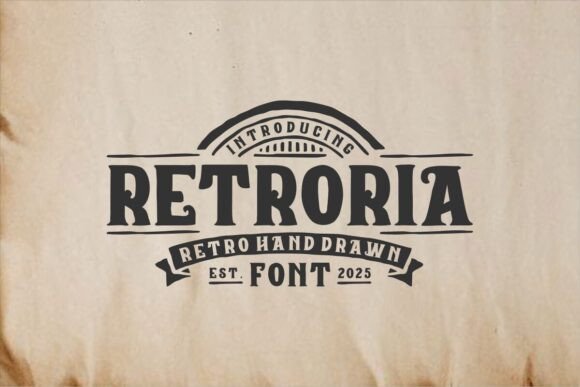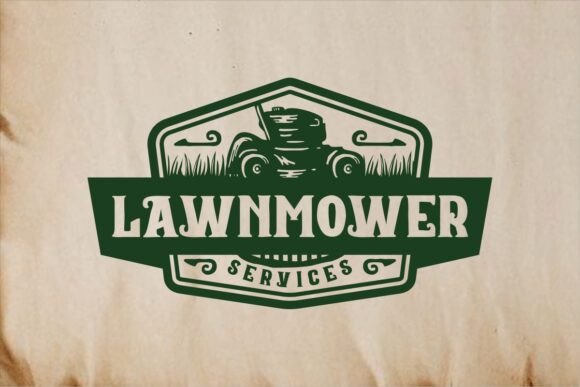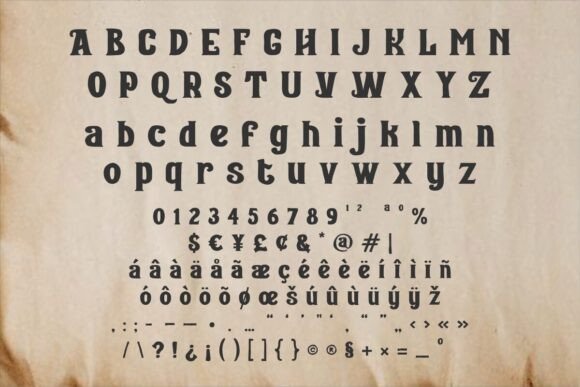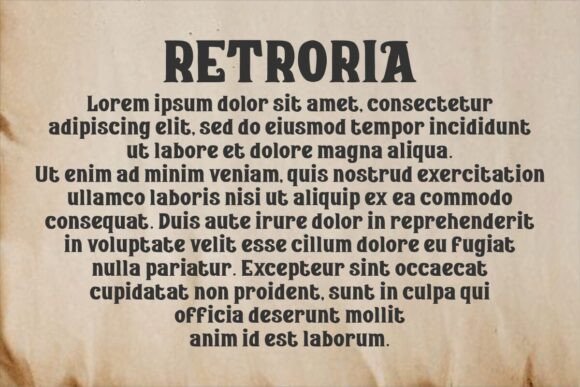
Retroria Font: Bold Vintage Typography for Eye-Catching Logo Design
About the Retroria Font
Experience the unique personality of Retroria Font, a font designed for impact. Retroria font combines the nostalgic charm of vintage typography with the personalized touch of hand-crafted artistry. This typeface is characterized by its playful curves, uneven lines, and unique imperfections, giving it an authentic, organic feel. It’s reminiscent of the classic signage and posters from the mid-20th century, often evoking a sense of warmth and familiarity.
Each letter in the font carries the artist’s unique flair, making it perfect for projects that require a touch of nostalgia, creativity, and individuality. Whether used for branding, packaging, or editorial design, a hand-drawn retro font adds character and a delightful retro vibe to any visual composition.
Retroria Font Usage Examples
Retroria Font Example